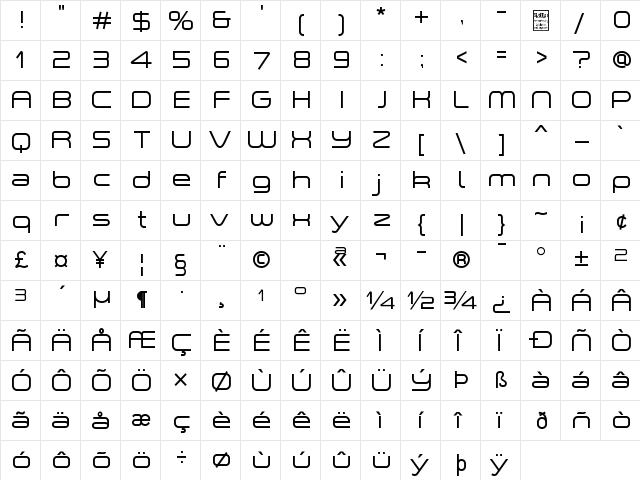
a峰ace Regular
Design Context for a峰ace Typeface
a峰ace is a composed and adaptable typeface that performs quietly and consistently across a wide range of design contexts.